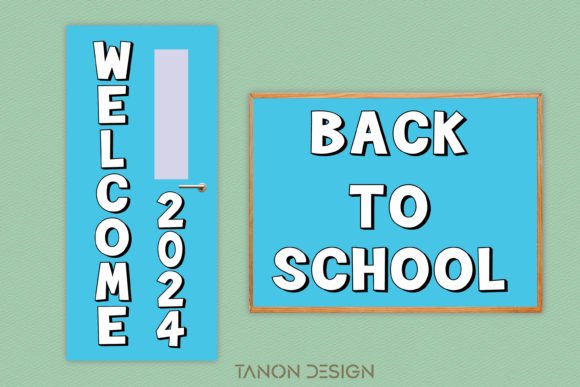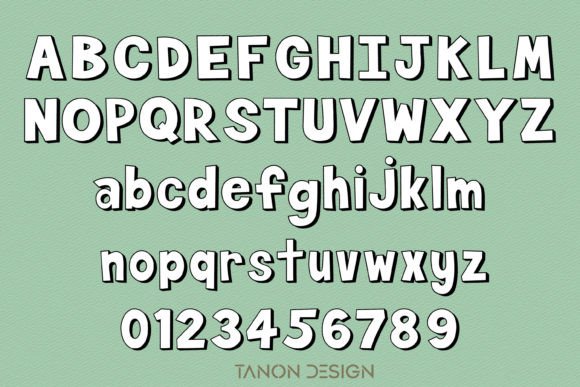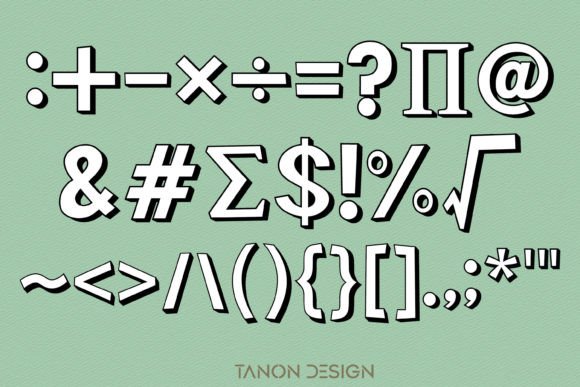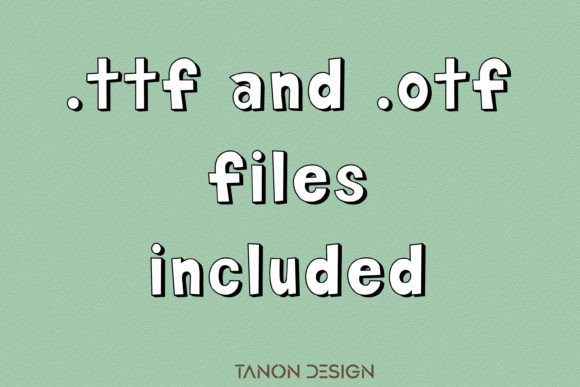
Bulletin Board Font: The Perfect Choice for School Classroom Bulletin Boards and Door Decorations
When it comes to creating visually appealing bulletin boards and door decorations for school classrooms, the right font can make all the difference. A well-designed font can add a touch of personality and creativity to your display, making it more engaging and effective in communicating your message. In this article, we’ll explore the benefits of using a 3D bulletin board font, and how it can be the perfect choice for school classroom bulletin boards and door decorations.
Why 3D Bulletin Board Font?
A 3D bulletin board font is a type of font that is designed to give a three-dimensional appearance to your text. This type of font is perfect for creating eye-catching headlines, titles, and announcements that can grab the attention of students, teachers, and parents. The 3D effect adds a level of depth and dimensionality to your text, making it stand out from traditional flat fonts.
One of the main benefits of using a 3D bulletin board font is that it can add a touch of excitement and energy to your display. Kids are naturally drawn to bright colors and bold designs, and a 3D font can help to create a visually appealing display that will capture their attention. Additionally, a 3D font can be used to create a sense of depth and dimensionality, making your display more engaging and interactive.
Perfect for Kids’ Activities and School Projects
A 3D bulletin board font is not just limited to bulletin boards and door decorations. This design font is also perfect for kids’ activities and school projects. Whether you’re creating a poster, flyer, or invitation, a 3D font can add a touch of creativity and personality to your design. Kids love bright colors and bold designs, and a 3D font can help to make your project stand out.
Some popular uses for a 3D bulletin board font include:
- Creating eye-catching posters and flyers for school events
- Designing invitations for parties and special events
- Making custom t-shirts and clothing designs
- Creating mugs and other personalized items
For designers and crafters, a 3D bulletin board font can be a valuable addition to your toolkit. This type of font can be used to create a wide range of designs, from simple text-based displays to more complex and intricate designs. Some benefits of using a 3D bulletin board font include:
- Easily create eye-catching headlines and titles
- Add a touch of creativity and personality to your designs
- Perfect for creating custom designs for kids’ activities and school projects
- Can be used to create a wide range of designs, from simple to complex
Tips for Using a 3D Bulletin Board Font
When using a 3D bulletin board font, there are a few tips to keep in mind to get the most out of your design:
- Choose a font that is easy to read, even from a distance
- Use a font that is consistent with your brand or design style
In conclusion, a 3D bulletin board font is the perfect choice for school classroom bulletin boards and door decorations. This design font is perfect for kids’ activities and school projects, and can be used to create a wide range of designs, from simple text-based displays to more complex and intricate designs. With its ability to add a touch of creativity and personality to your design, a 3D bulletin board font is a valuable addition to any designer’s or crafter’s toolkit.